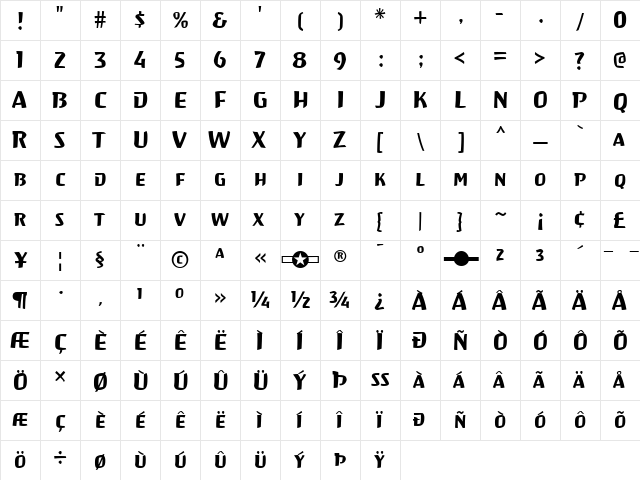
Hayate Regular Font Preview
Hayate Regular
Hayate Regular Font Details
Design Context for Hayate Typeface
Hayate offers clean, dependable letterforms without strong stylistic allegiance, making it a practical choice for designers who need flexibility.